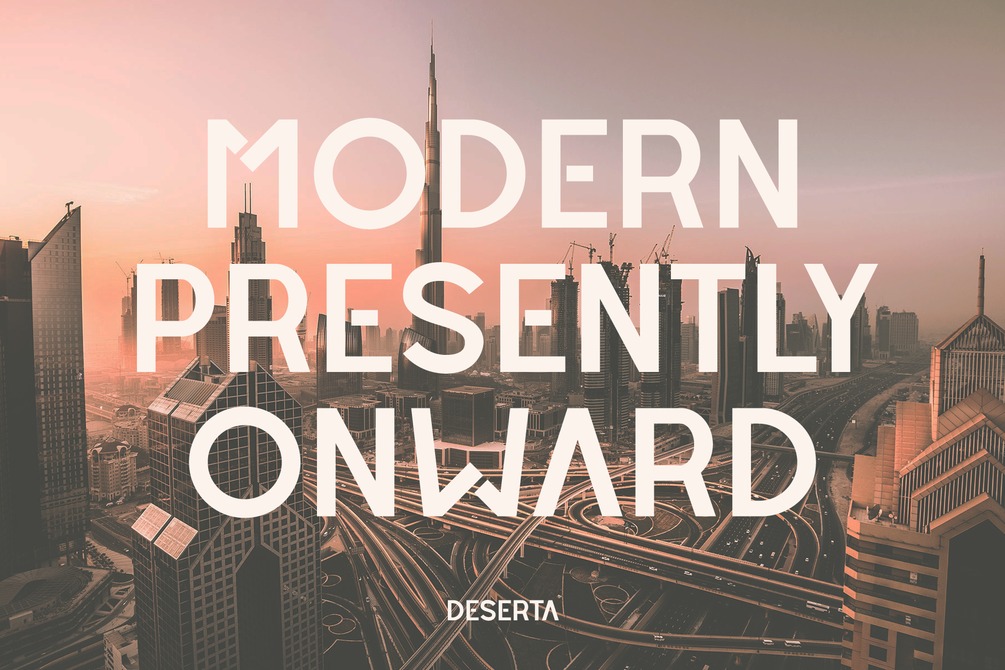
Deserta Display Font
This is a sans based font, inspired from famous logos of Futuristic Style and brands that have very strong characteristics.
The font is created with strong and challenging nuances. very suitable for the title, typography, Poster, magazines, brochures, packaging, Websites and much more for your design needs, making your designs more modern and professional